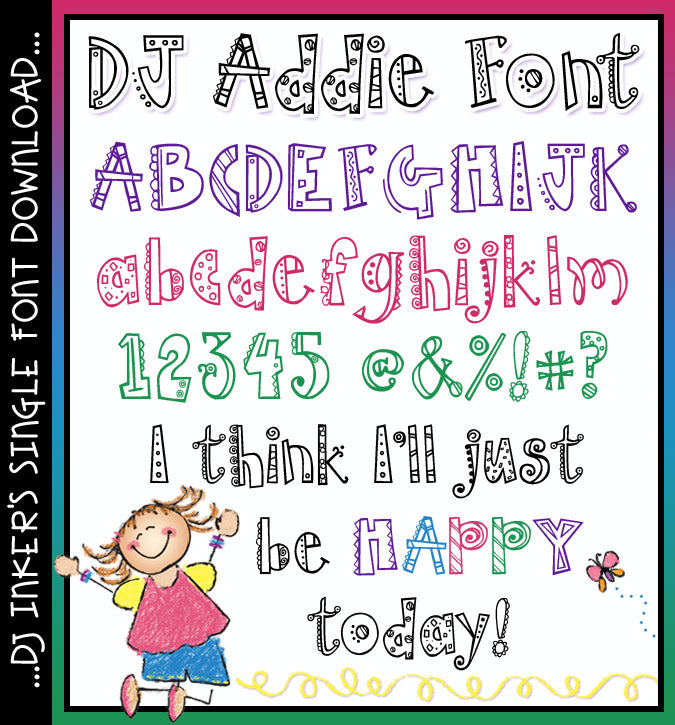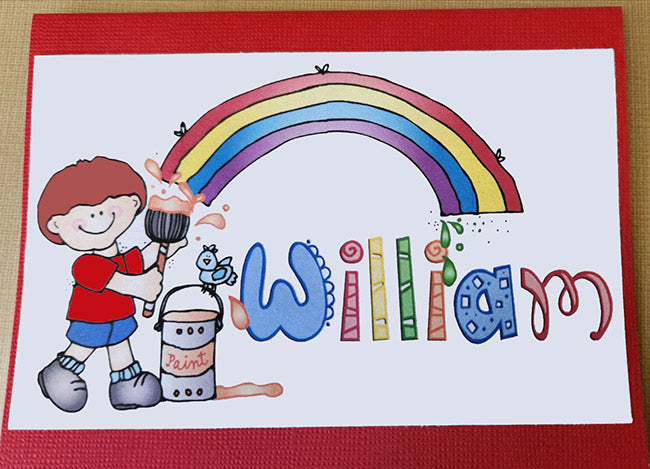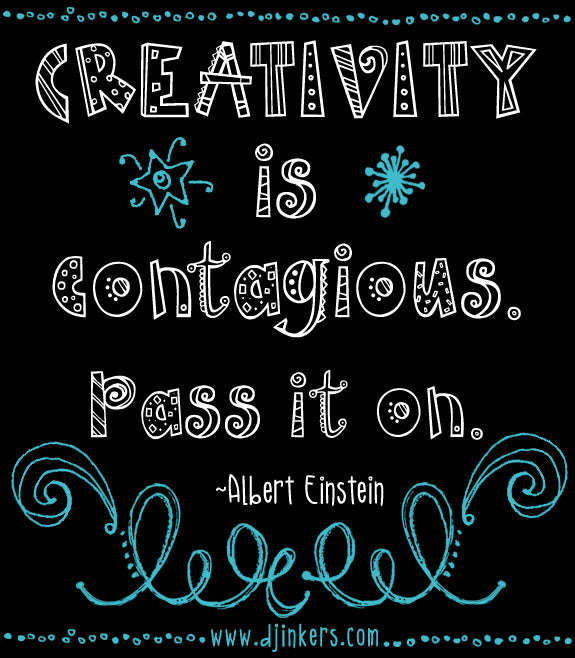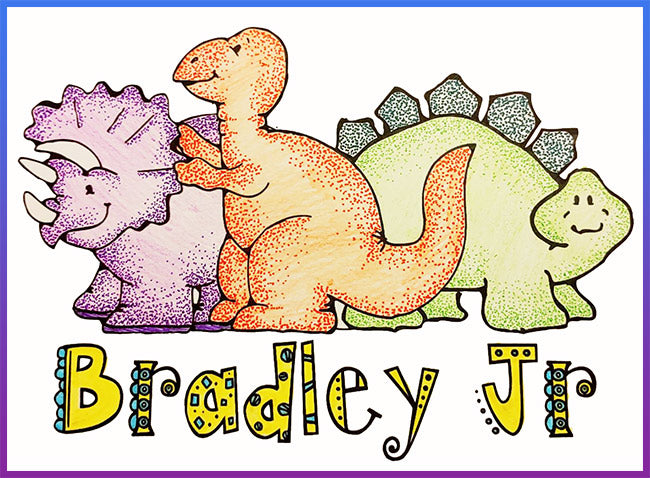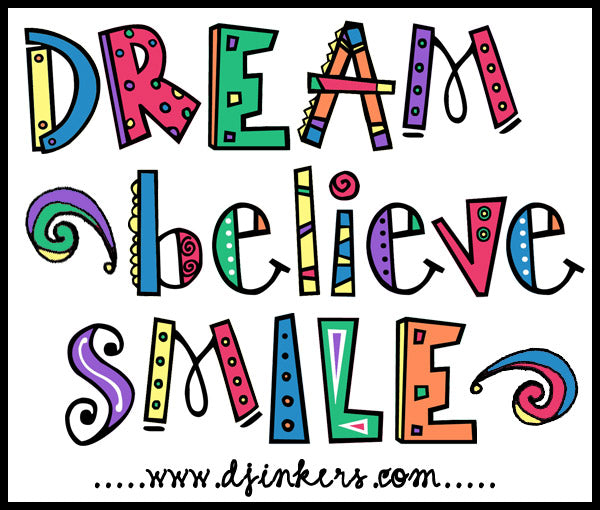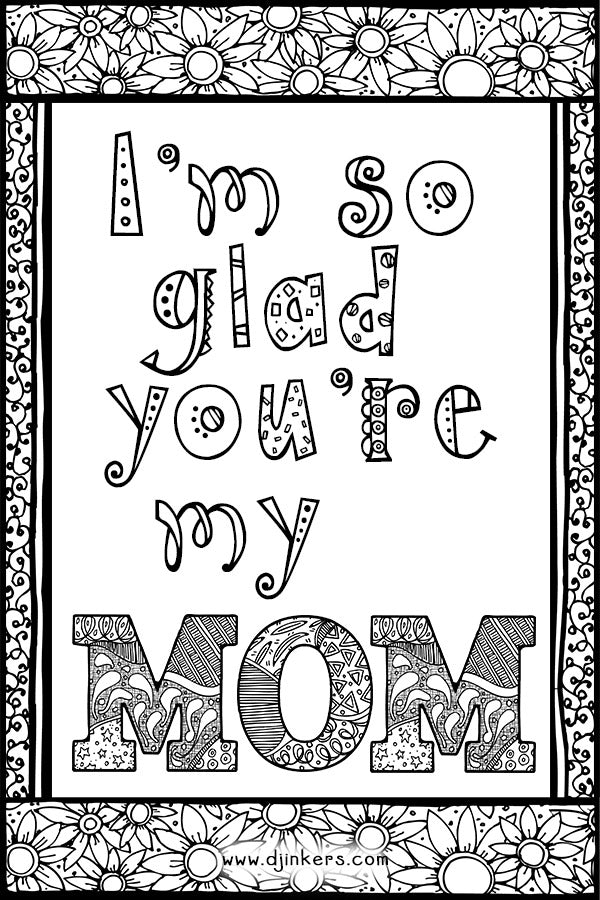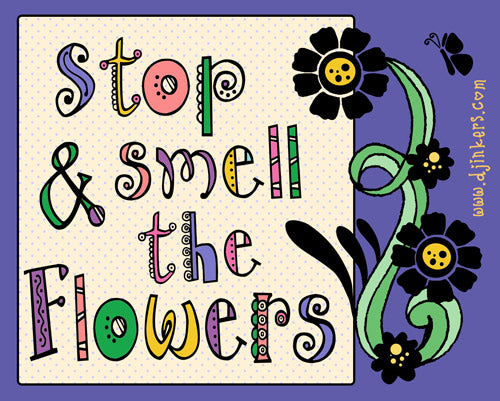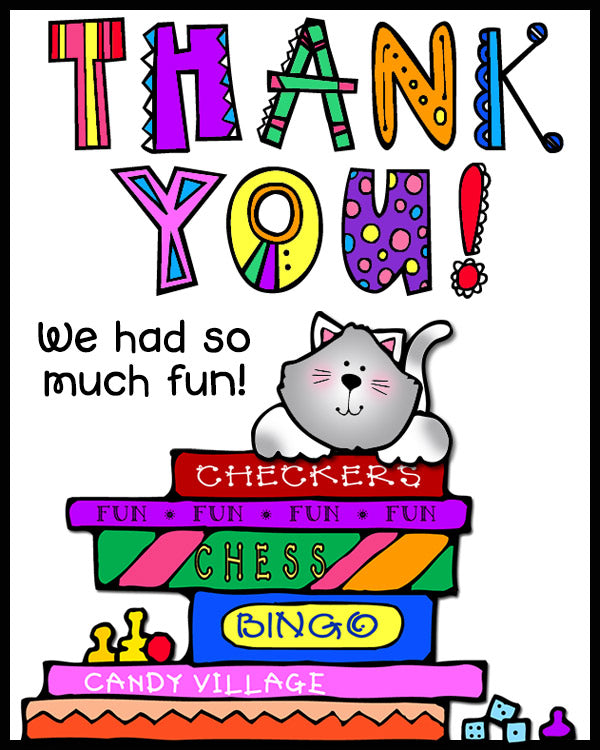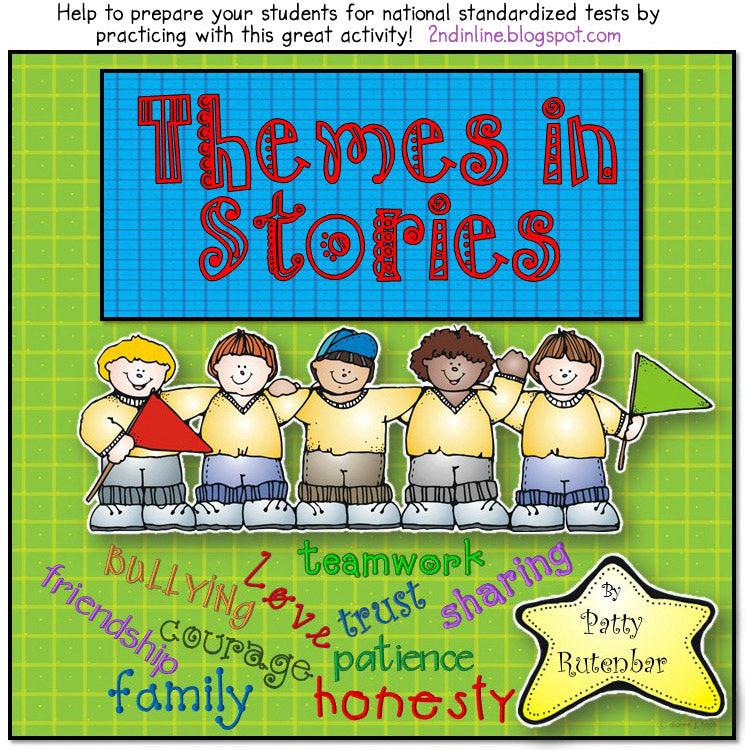
DJ Addie is a playfully mismatched font for typing smiles by DJ Inkers
DJ Addie Font Download
DJ Addie is a playfully mismatched font for typing smiles by DJ Inkers
Our wild & crazy DJ Addie font is so much fun! Every letter is doodled differently... so it's perfect for projects that need a little something sassy. Looks best in larger sizes & bright, bold colors. You'll love this playfully mismatched font for typing smiles.